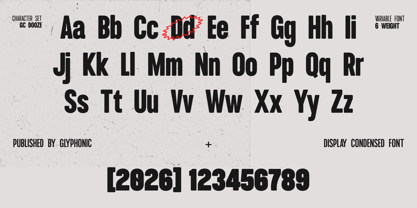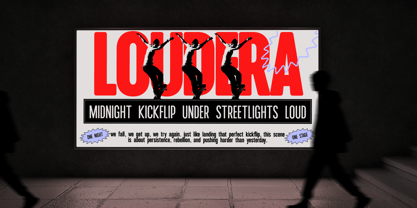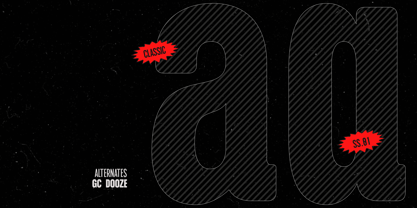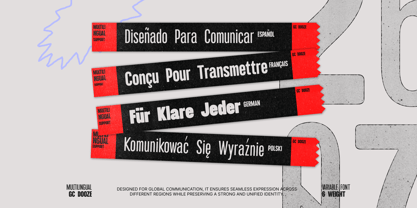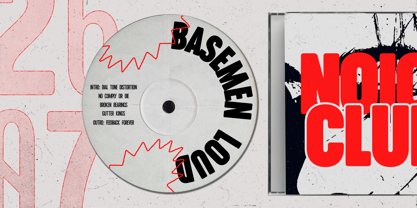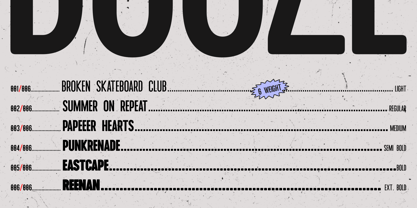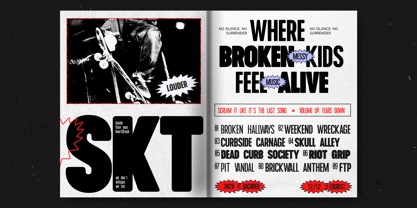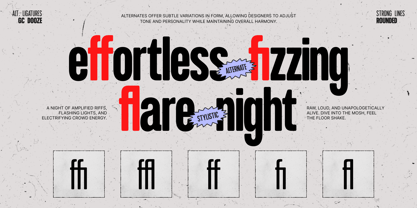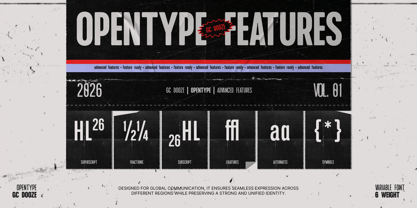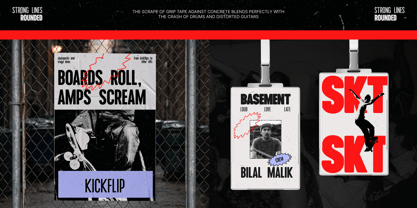
GC Dooze
The GC Dooze Font Family was designed by Muhammad Hafiizh Solana and published by Onyx Studio. GC Dooze contains 6 styles and family package options. More about this family
GC Dooze – Display Condensed Sans is a bold condensed typeface that combines strong vertical structure with smooth rounded edges, creating a distinctive balance between power and playfulness. Designed to stand tall and command attention, Dooze delivers a striking visual presence while maintaining a friendly and modern tone. Its condensed form maximizes space efficiency, making it perfect for tight layouts without sacrificing impact. The thick strokes and softened curves—clearly seen in its rounded terminals and solid construction—give the typeface a unique personality that feels both strong and approachable. Built as a variable font with multiple weight options,** GC Dooze** offers flexibility for designers to explore different levels of boldness while maintaining consistency across layouts. From heavy, impactful headlines to slightly lighter expressive compositions, Dooze adapts seamlessly. This typeface shines in display use—ideal for posters, branding, street-style visuals, editorial headlines, and modern creative campaigns. Its combination of strong lines, rounded forms, and condensed proportions makes it especially suitable for designs that aim to feel bold yet dynamic. Features: - Variable Font (6 Weight Options) - Uppercase & Lowercase - Numbers & Punctuation - Condensed Display Structure - Strong Lines with Rounded Edges - Multilingual Support (170+ Languages) Bring bold energy, compact structure, and modern playful curves into your design with GC Dooze.